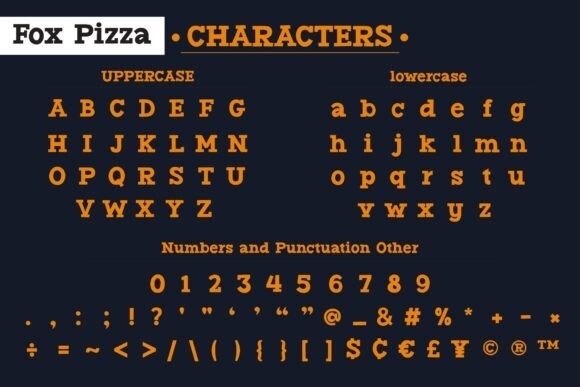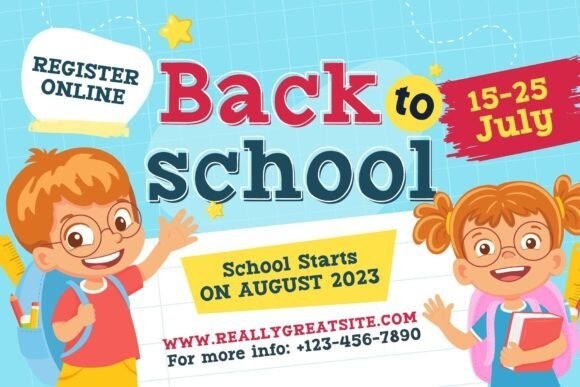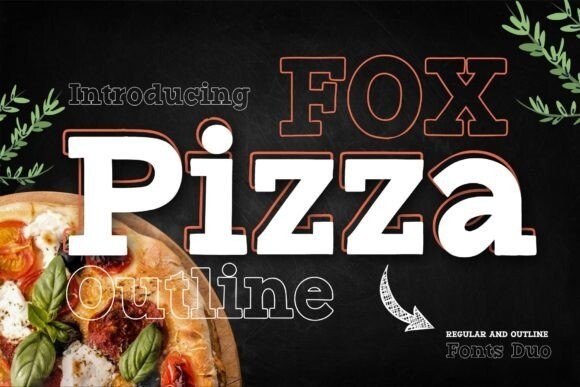
Fox Pizza Font
Fox Pizza Font is a cool and modern slab serif font. This font is perfect for publications, menus, logos, business cards, or printed on t-shirts, this font will look outstanding on everything, no matter the topic. This font will be an incredible asset to your fonts’ library, as it has the potential to elevate any creation.